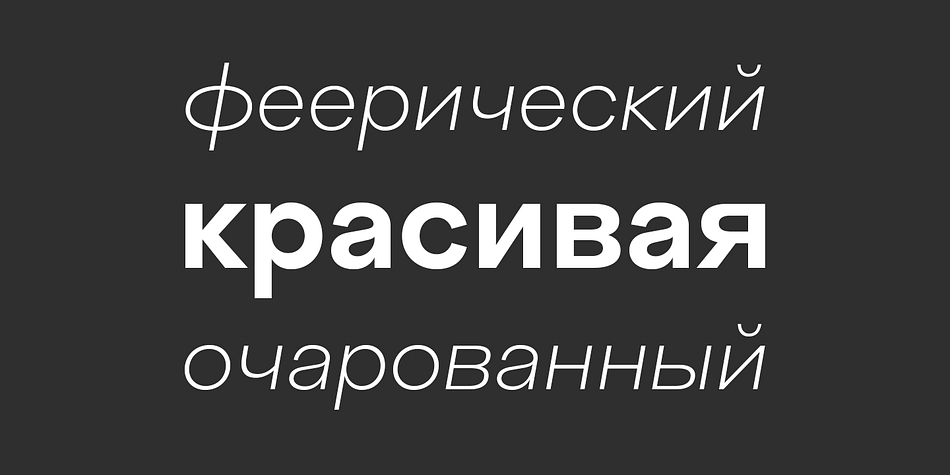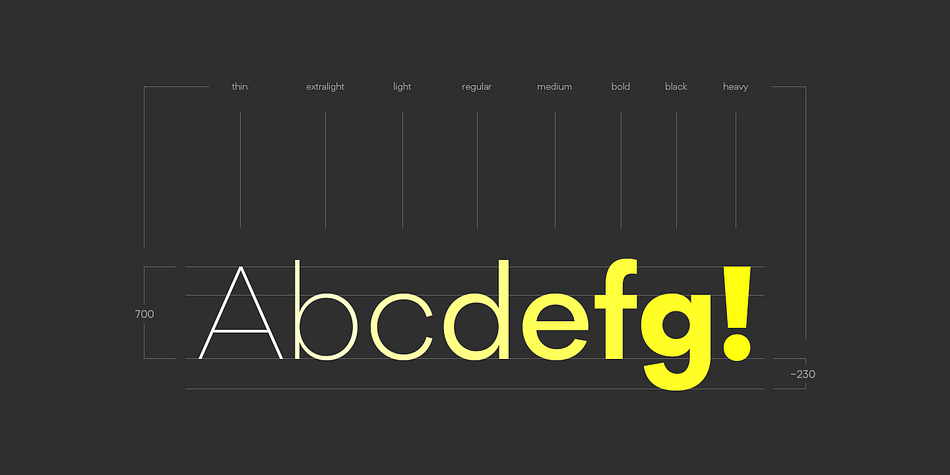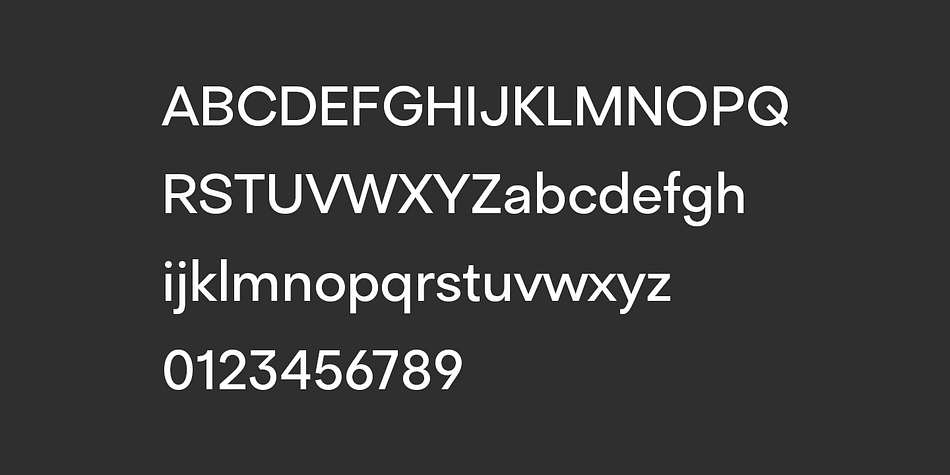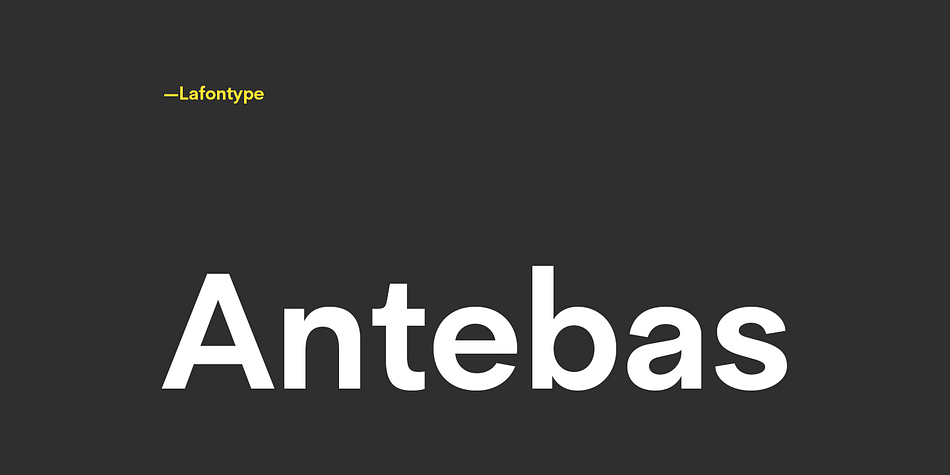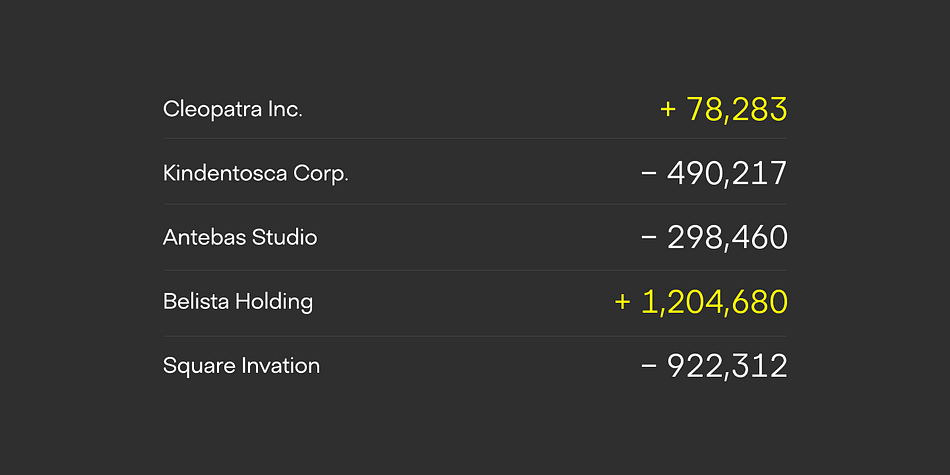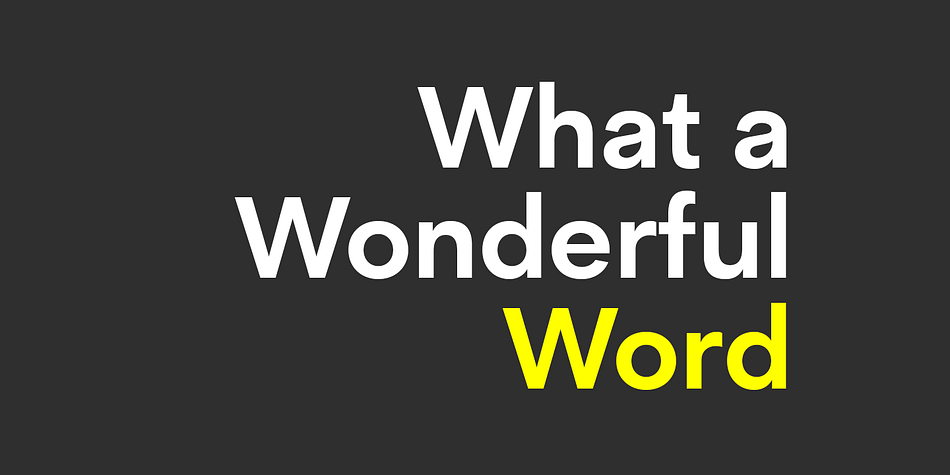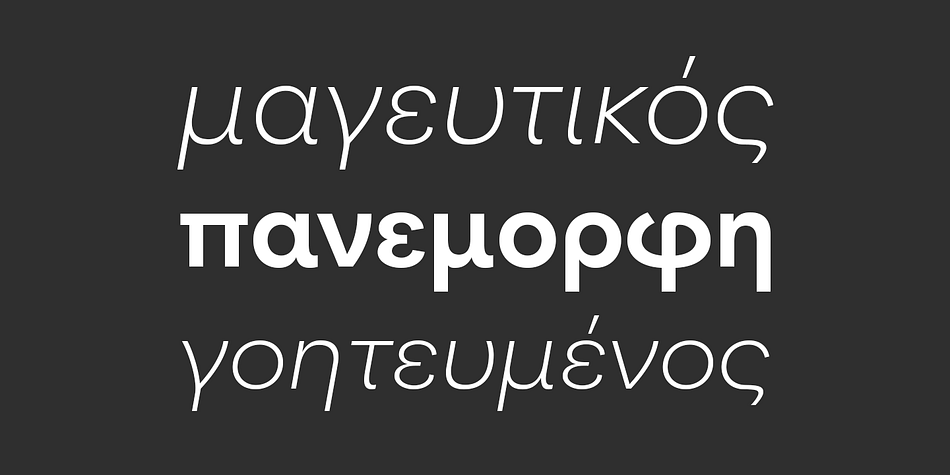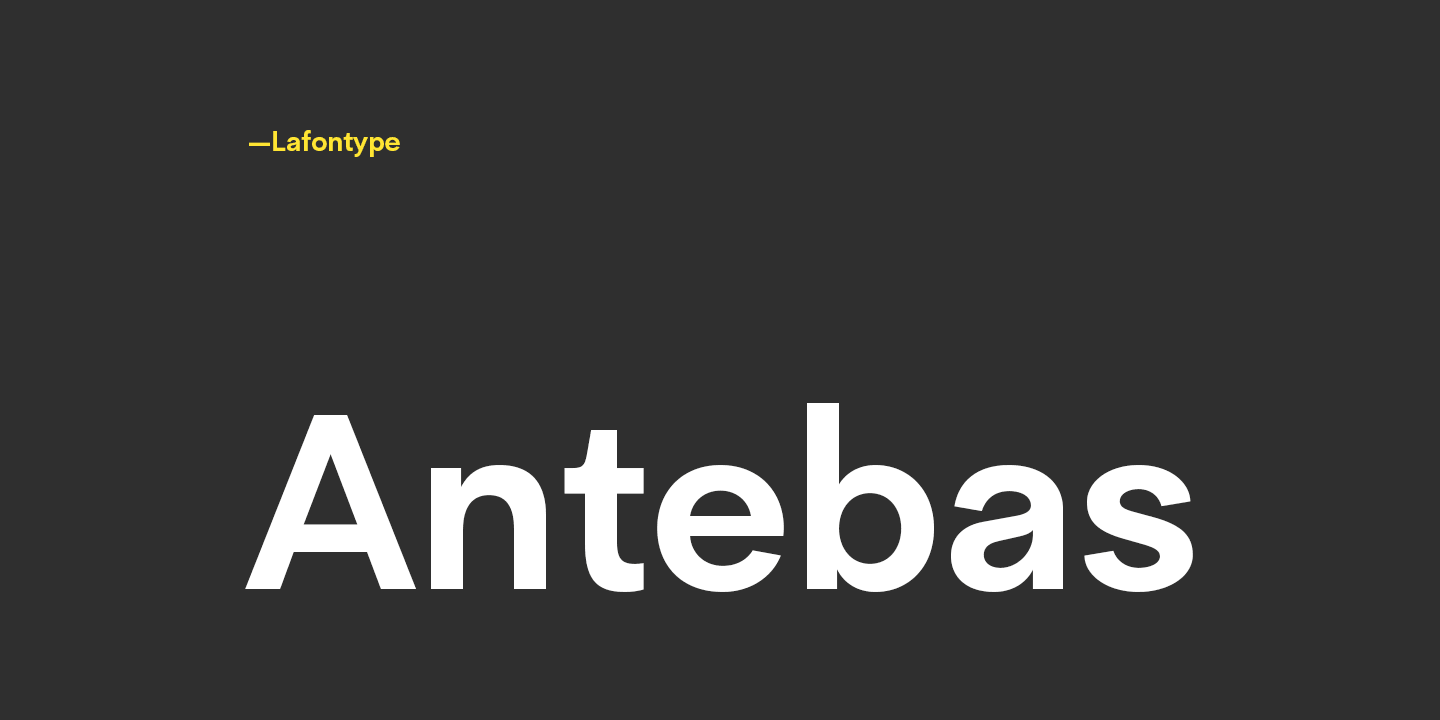
Designed by Anugrah Pasau, Antebas is a sans serif font family. This typeface has sixteen styles and was published by Lafontype.
Antebas is a sans serif family with a geometric touch. Available in 16 styles from Thin to Heavy and it’s matching italics. OpenType features such as fractions, ordinal, superscript, subscript, numerators, denominators and tabular figures are available. besides Latin letters, Antebas also supports Cyrillic and Greek letters.
Foundry | Lafontype |
Designer | Anugrah Pasau |